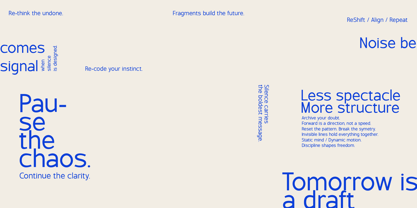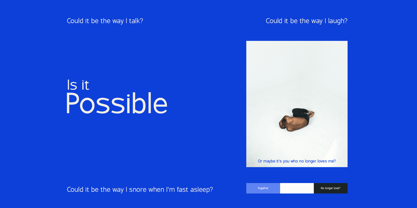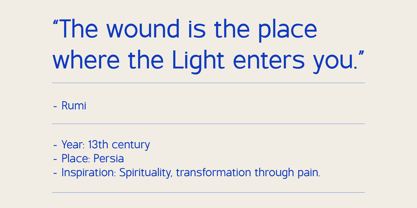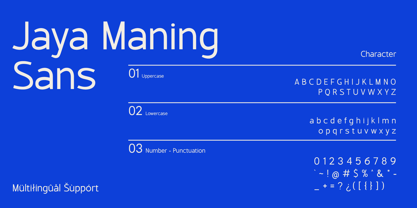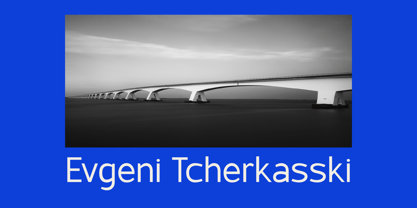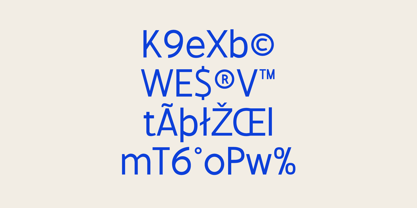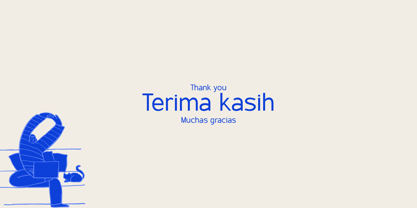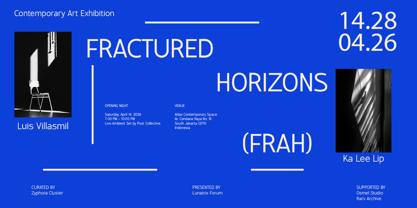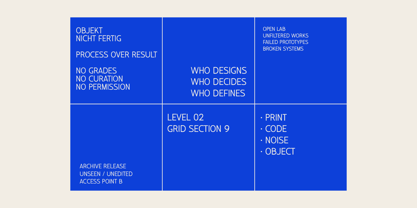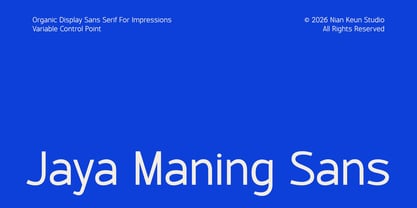
Jaya Maning Sans
by Nian Keun Studio
The Jaya Maning Sans Font Family was designed by Mugi Raharjo and published by Nian Keun Studio. Jaya Maning Sans contains 1 styles. More about this family
Jaya Maning Sans is an organic modern sans serif display font crafted to deliver a clean, bold, and expressive visual presence across a wide range of design applications. Built with carefully balanced proportions and subtly softened edges, this typeface combines contemporary structure with a warm, humanist character. The smooth yet confident letterforms create a strong typographic voice that feels both professional and approachable, making it highly adaptable for creative exploration as well as commercial use. Designed with clarity and impact in mind, Jaya Maning Sans performs exceptionally well at medium to large sizes, where its refined curves and confident strokes truly stand out. Whether used for branding systems, striking headlines, posters, logos, editorial layouts, UI/UX interfaces, or dynamic digital content, this font ensures readability while maintaining a distinctive personality. Its organic flow adds visual rhythm, while its modern construction keeps every composition looking sharp and current. Jaya Maning Sans is a reliable choice for designers who seek a versatile display typeface that balances minimalism with expressive detail. It seamlessly fits both bold statement designs and clean, sophisticated layouts. Perfect for: Branding & logo design Posters & headlines Websites & UI design Editorial & magazines Social media content Digital ads & presentations
Designers: Mugi Raharjo
Foundry: Nian Keun Studio